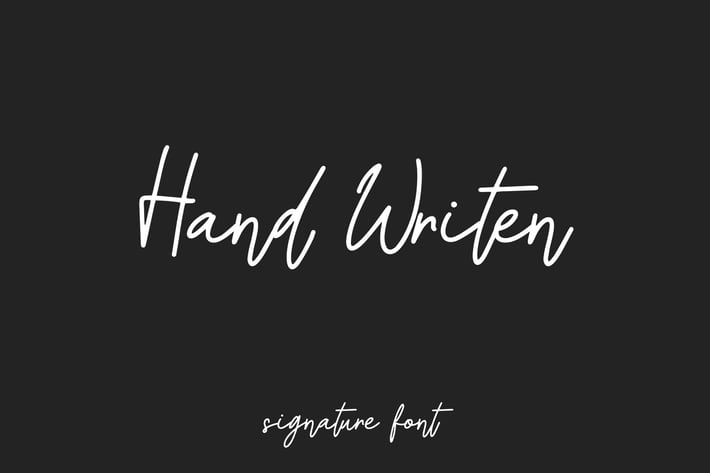
Hand Writen - Signature Font
Hand Writen is a modern signature handwritten font. The look of the font is small, elegant, exclusive.
Hand Writen can be used in any works such as card, wedding invitation, book title, poster, advertisement, social media content, logo and many more.